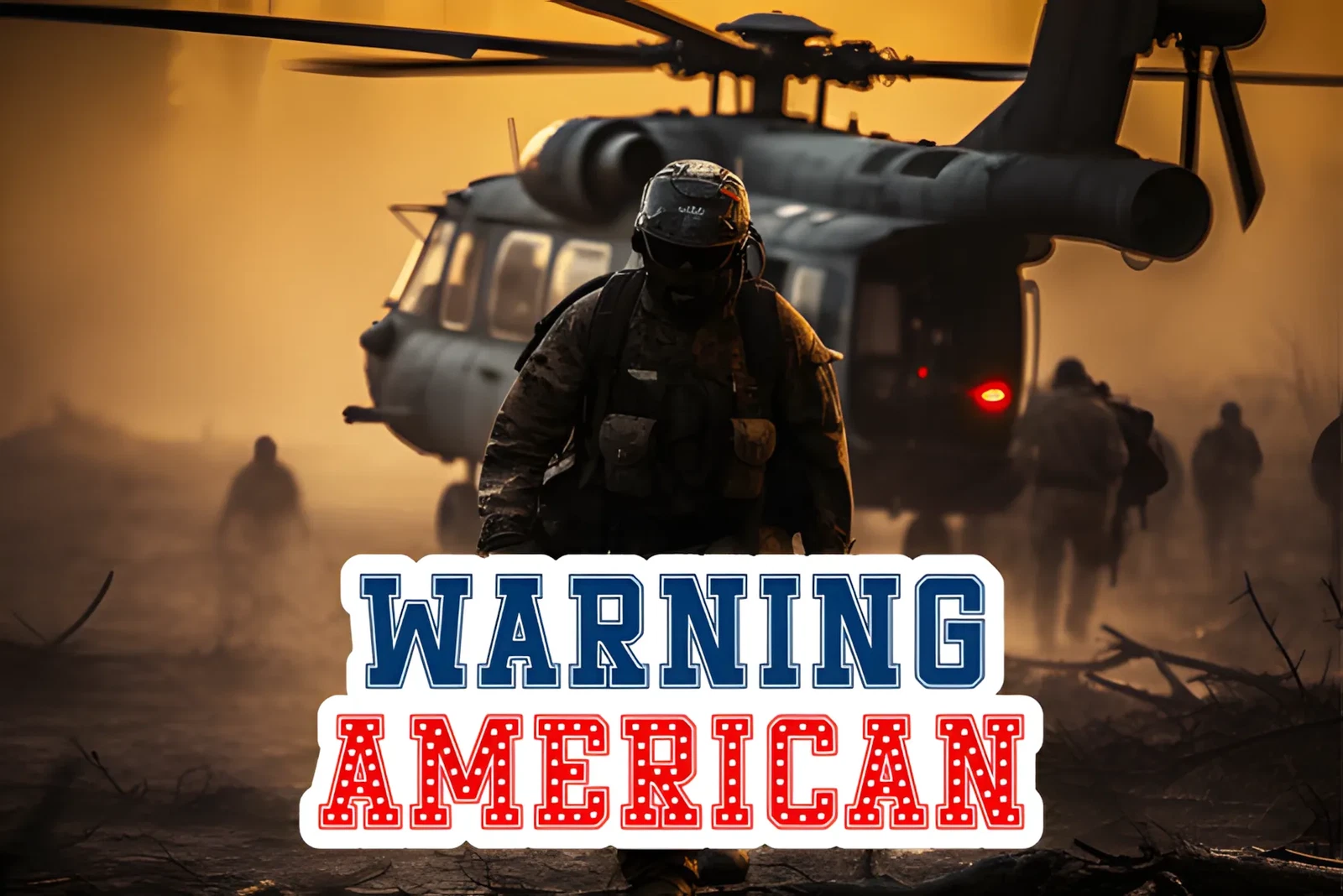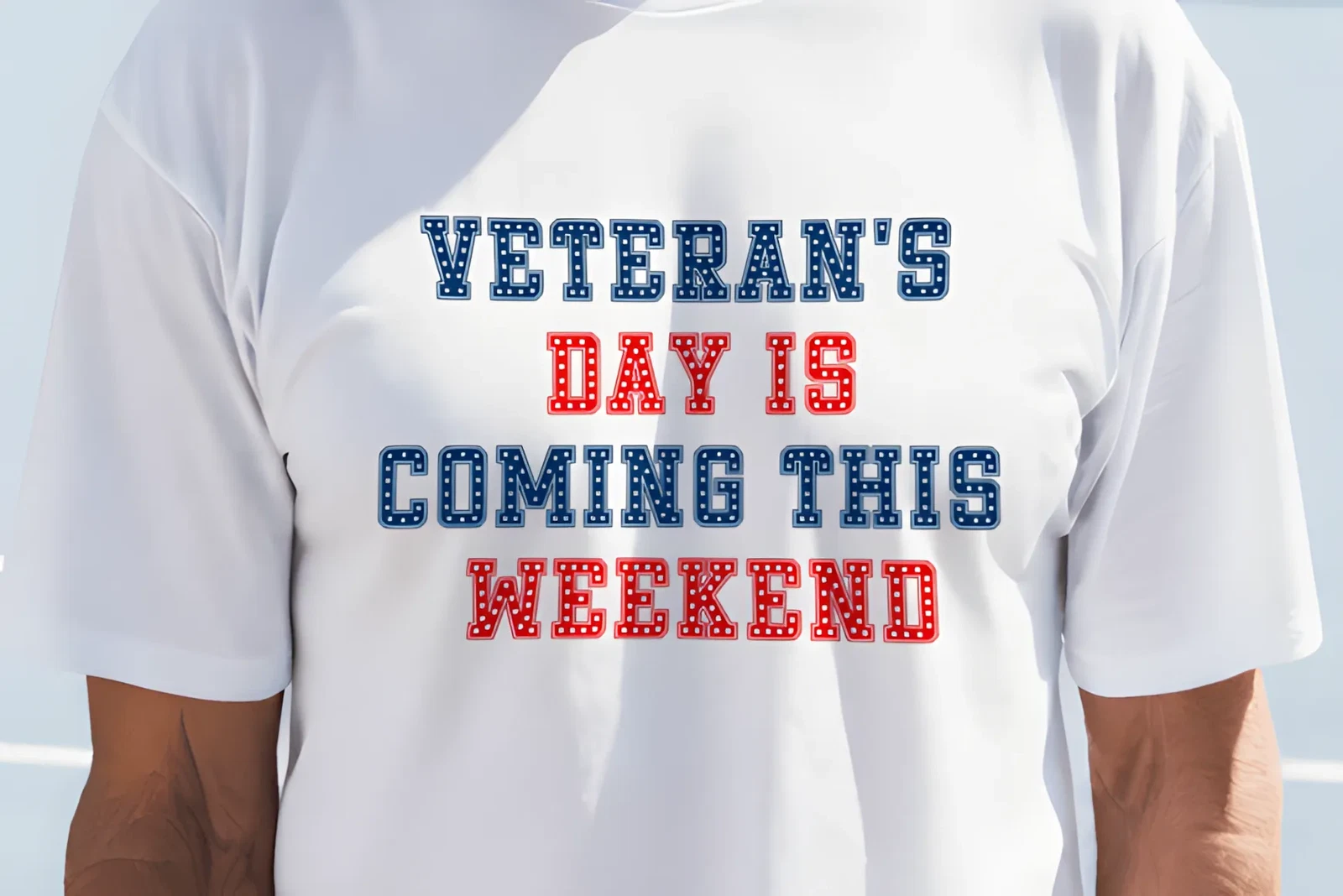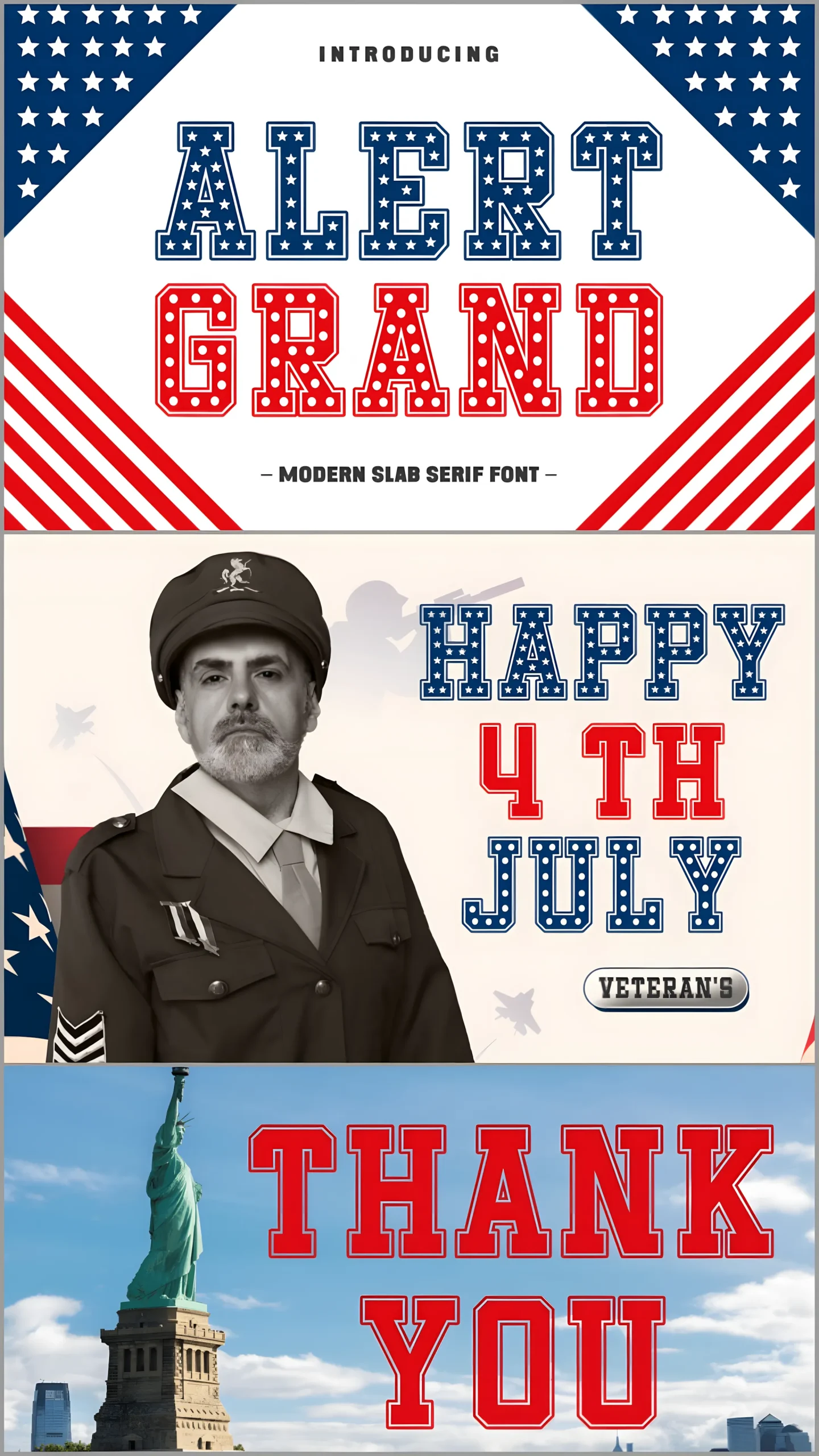
Some fonts are created to decorate, others to communicate strength and identity. Alert Grand Font clearly belongs to the second category. This is a modern slab serif typeface designed to reflect confidence, national character, and bold visual presence.
From the first glance, the font feels solid and purposeful. It combines classic slab serif structure with modern detailing, making it suitable for designs that need to feel authoritative, expressive, and unmistakably strong.
Visual Style and First Impression
Alert Grand Font delivers a powerful first impression. The letterforms are thick, well-balanced, and structured, with slab serifs that add weight and stability. The overall design feels polished and smooth rather than rough or distressed.
A distinctive feature of this typeface is its patriotic visual tone. The font clearly draws inspiration from American values and national identity, which gives it a confident and recognizable character. Despite this strong theme, the design remains clean and readable, avoiding unnecessary complexity.
The result is a font that feels bold without being overwhelming.
A Modern Slab Serif With Identity
As a slab serif typeface, Alert Grand relies on strong construction rather than ornamentation. The serifs are firm and consistent, reinforcing the font’s sense of reliability and structure.
The font family includes both a solid version and an outline version, allowing designers to create contrast and hierarchy within the same visual system. This flexibility makes Alert Grand suitable for a wide range of branding and promotional needs.
The overall style balances modern design with classic inspiration, making it versatile rather than limited to one specific use.
Designed for Patriotic and Statement Projects
Alert Grand Font is especially effective in projects that aim to communicate:
- national identity
- strength and confidence
- tradition with a modern edge
It feels natural in designs related to American culture, history, and public events, but it also works well in bold branding contexts where clarity and authority matter more than decoration.
Practical Design Applications
Branding and Logo Design
Alert Grand Font works very well in branding. Logos created with this typeface feel confident, stable, and professional. The slab serif structure gives logotypes a strong foundation, making them suitable for brands that want to appear trustworthy and established.
It is especially effective for:
- brand headlines
- logo wordmarks
- identity systems
The outline version adds flexibility for layered or modern logo designs.
Posters, Covers, and Headlines
As a display font, Alert Grand excels in large text. Posters, covers, and headlines benefit from its bold presence and clear letterforms.
It works particularly well for:
- promotional posters
- book covers
- magazine headlines
- campaign visuals
The font remains readable at large sizes while still delivering visual impact.
Apparel, Merchandise, and Packaging
Alert Grand Font translates well to physical products. The thick letterforms hold up nicely in printing and cutting applications, making the font suitable for:
- t-shirts and apparel
- merchandise
- packaging designs
- print-on-demand products
Its smooth finish helps maintain clarity across different materials and production methods.
Readability and Usage Notes
Although Alert Grand Font is bold, readability remains one of its strengths. The spacing and proportions allow text to stay clear, especially in short phrases and headlines.
As with most slab serif display fonts, it is best used for:
- titles
- headlines
- featured text
For longer body text, pairing it with a simpler supporting font helps maintain balance and reading comfort.
Emotional Tone and Design Feel
The emotional tone of Alert Grand Font is confident, strong, and authoritative. It communicates stability and pride without feeling rigid or outdated.
This makes it suitable for designs that aim to inspire trust, recognition, and impact. The font supports messages that need to feel important and deliberate rather than casual or playful.
Alert Grand Font is a modern slab serif typeface built around confidence and identity. Its strong structure, smooth finish, and patriotic tone make it a reliable choice for designs that need to feel bold and purposeful.
For designers looking for a font that combines tradition with modern clarity, Alert Grand Font offers a solid and versatile solution. Used thoughtfully, it brings strength, structure, and character to projects that demand attention and respect.